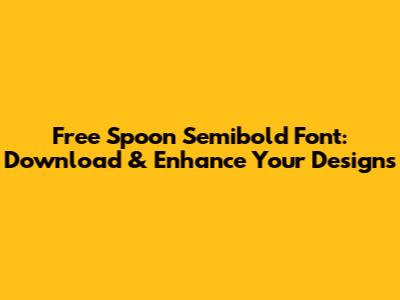
Free Spoon Semibold Font: Download & Enhance Your Designs
Hey guys! Are you looking for a fantastic font that can add a touch of elegance and readability to your designs? Well, look no further! The Spoon Semibold font is here to save the day! In this article, we'll dive deep into everything you need to know about this amazing font, including how to grab a free download and how you can use it to elevate your creative projects. Ready to get started? Let's go!
What is Spoon Semibold Font?
So, what exactly is the Spoon Semibold font? It's a modern and versatile typeface known for its clean lines, balanced proportions, and semi-bold weight. This makes it incredibly readable and perfect for various applications. It strikes a beautiful balance between being bold enough to catch the eye and subtle enough not to overwhelm the design. Whether you're working on a website, a poster, a logo, or even a presentation, the Spoon Semibold font can be a game-changer. It is a sans-serif font, meaning it doesn't have the little decorative strokes (serifs) at the end of each letter, giving it a sleek and contemporary feel. This typeface is often used for headings, subheadings, and body text, providing a cohesive and professional look. It's an excellent choice for projects where clarity and style are paramount. When considering the best fonts to enhance your design, the Spoon Semibold font is frequently listed among the top choices. Its versatility allows it to adapt to diverse projects, from formal business presentations to more casual and playful designs. The font's design ensures legibility across various sizes and formats, making it a reliable option for both print and digital media. Its simplicity makes it easy to incorporate into any design without clashing with other elements, allowing the core message to be delivered effectively. You can download this font to enhance the aesthetic appeal of your design and to create a more immersive experience for your audience.
Characteristics of Spoon Semibold Font
Let's talk a bit more about what makes the Spoon Semibold font so special. This font is characterized by several key features that set it apart from the crowd:
• Readability: The primary benefit of the Spoon Semibold font is its excellent readability. The clear and open letterforms ensure that text is easily discernible, even at smaller sizes. This is crucial for body text, where clarity is paramount.
• Versatility: The font's semi-bold weight and clean design make it versatile enough to be used in various projects. You can use it for headlines, subheadings, or even longer blocks of text.
• Modern Aesthetic: The Spoon Semibold font has a contemporary feel, making it perfect for modern designs. It can bring a fresh and stylish look to any project.
• Balance: The font strikes a perfect balance between being noticeable and being understated. It grabs the attention without being too overwhelming, allowing your content to shine.
So, there you have it, guys! The Spoon Semibold font is an excellent choice for anyone looking to add a touch of modern elegance and readability to their designs. With its clean lines, excellent readability, and versatile nature, this font can significantly enhance the appearance and effectiveness of your projects. Now that you know where to get it and how to use it, it's time to start creating! Go ahead and download the Spoon Semibold font, experiment with it, and see how it can transform your designs. Happy designing!